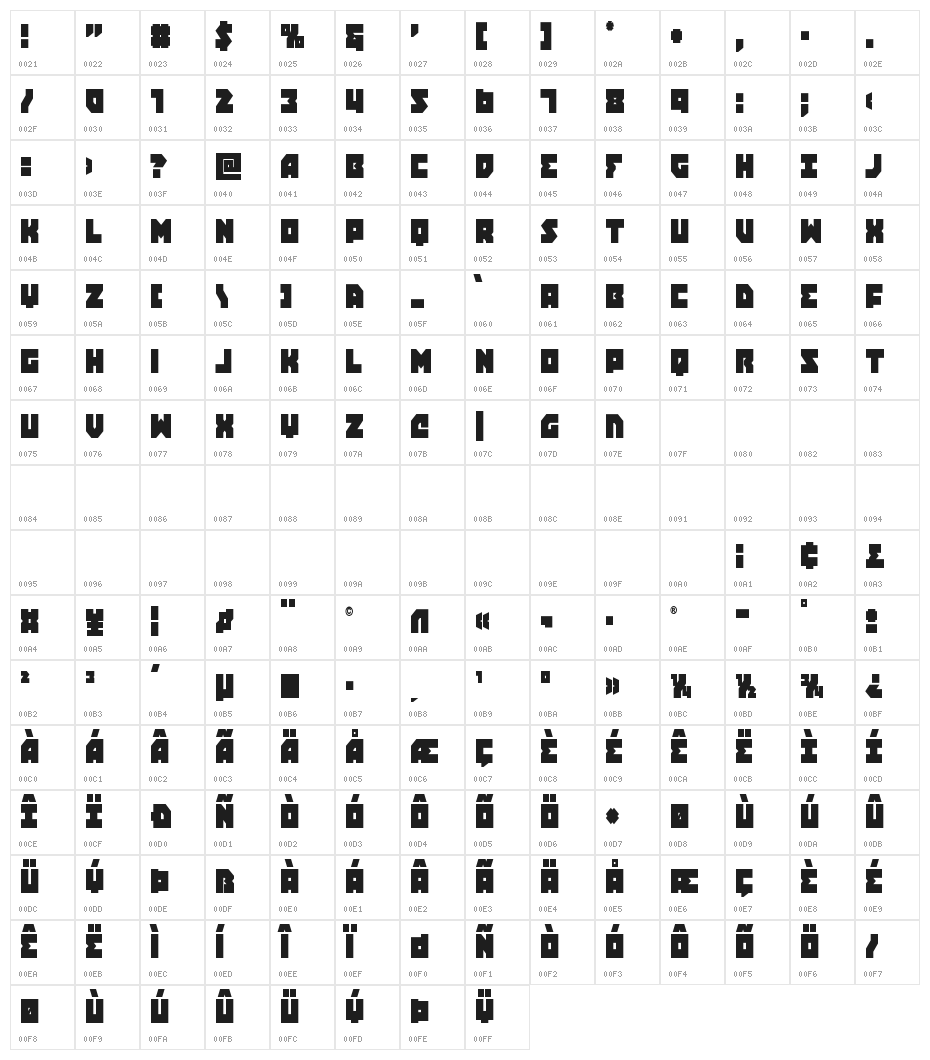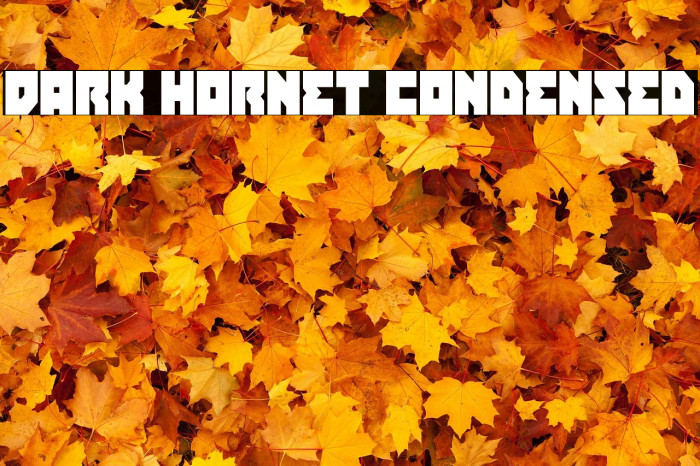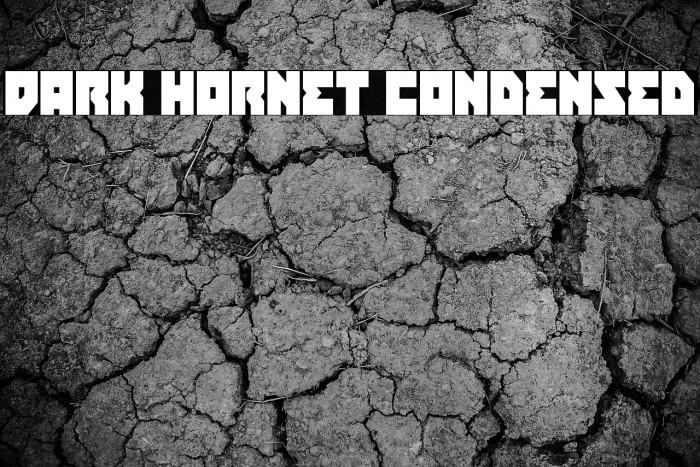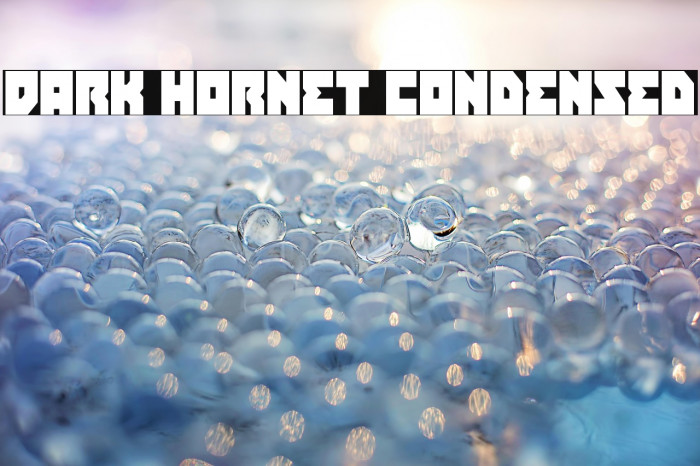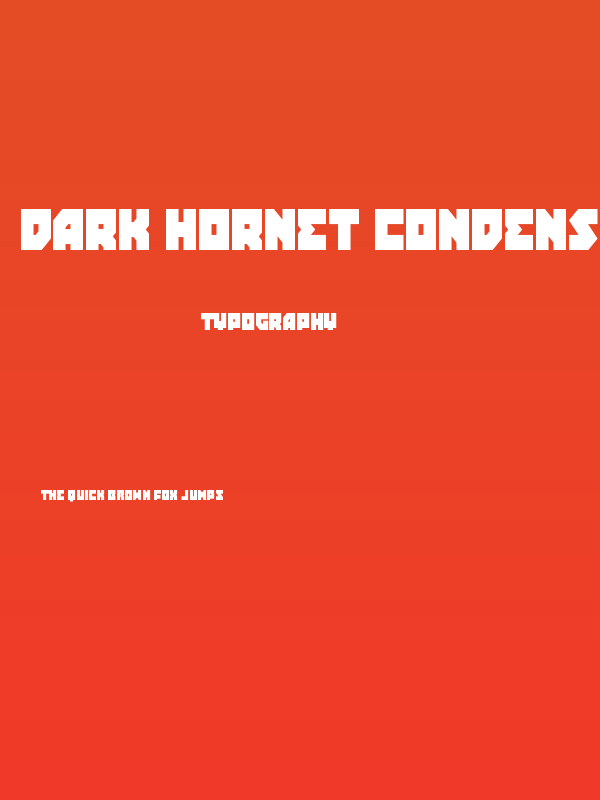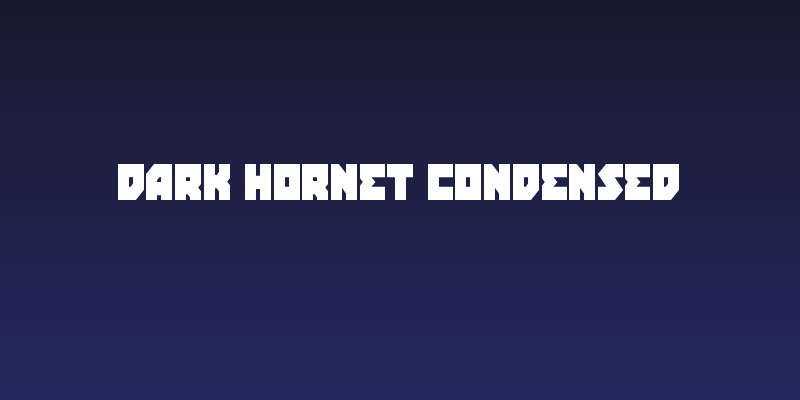
Dark Hornet Condensed Font
Dark Hornet Condensed Description
This font features a bold, geometric design with sharp angles and a condensed structure. The characters are blocky and robust, giving a strong and impactful appearance. The uppercase and lowercase letters maintain a consistent style, with the lowercase mirroring the uppercase in form. Numbers and special characters follow the same bold and angular aesthetic, ensuring uniformity across all glyphs. The overall design is modern and assertive, making it suitable for attention-grabbing headlines and logos.
| Proposed Projects | Ideal for branding, posters, and any project requiring a strong visual impact. |